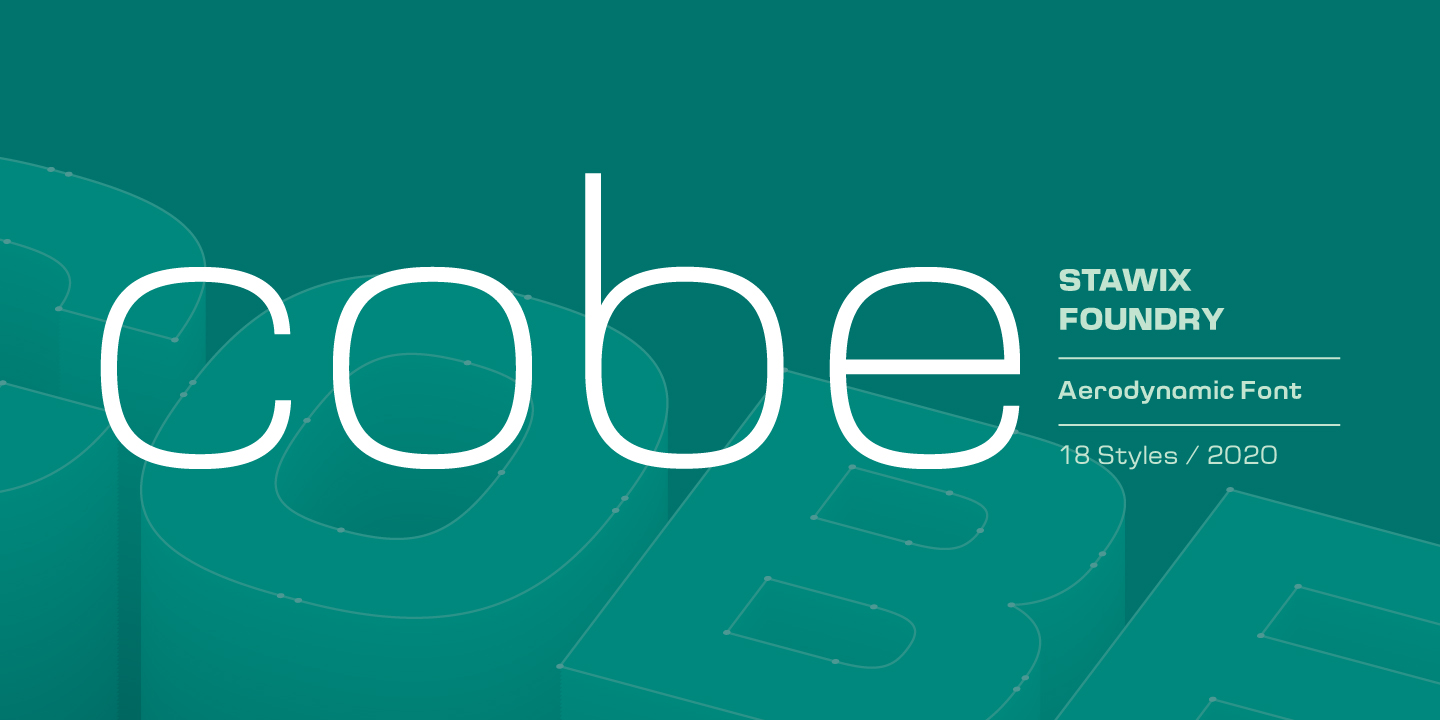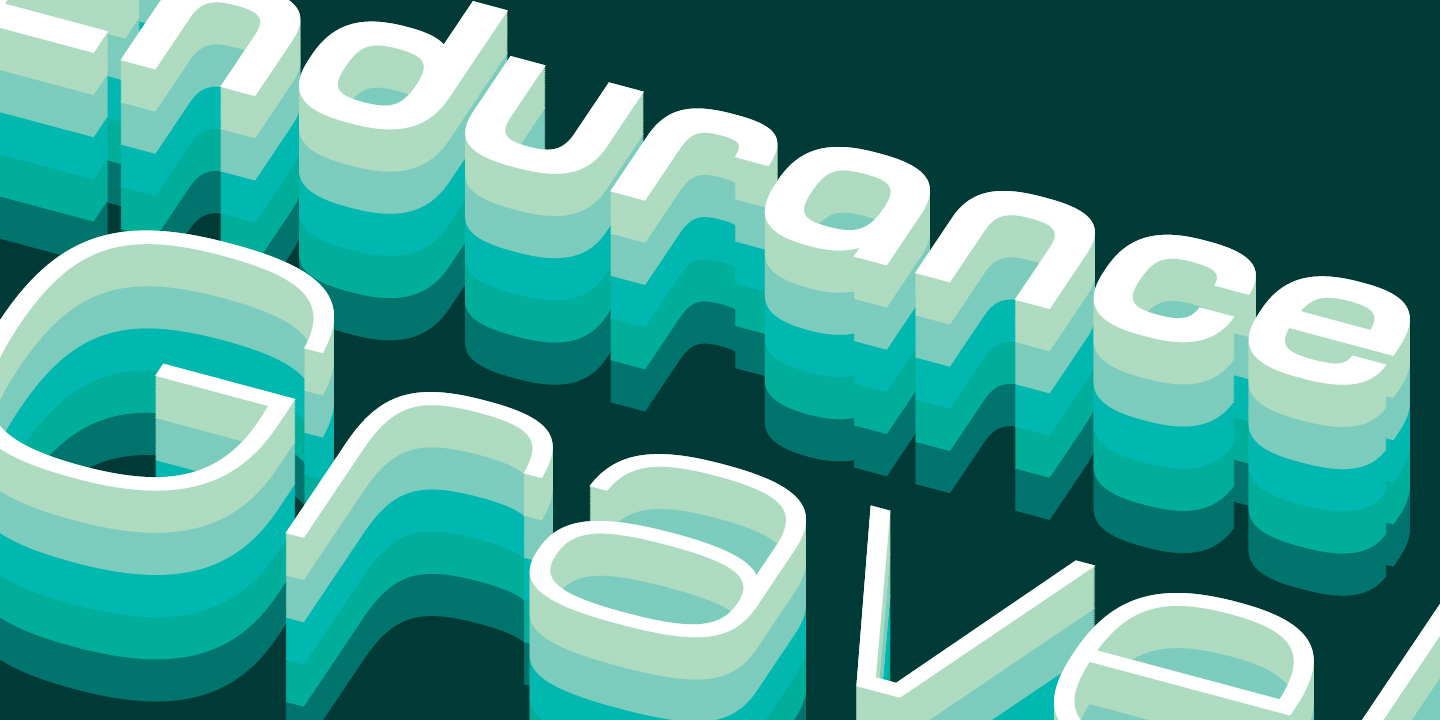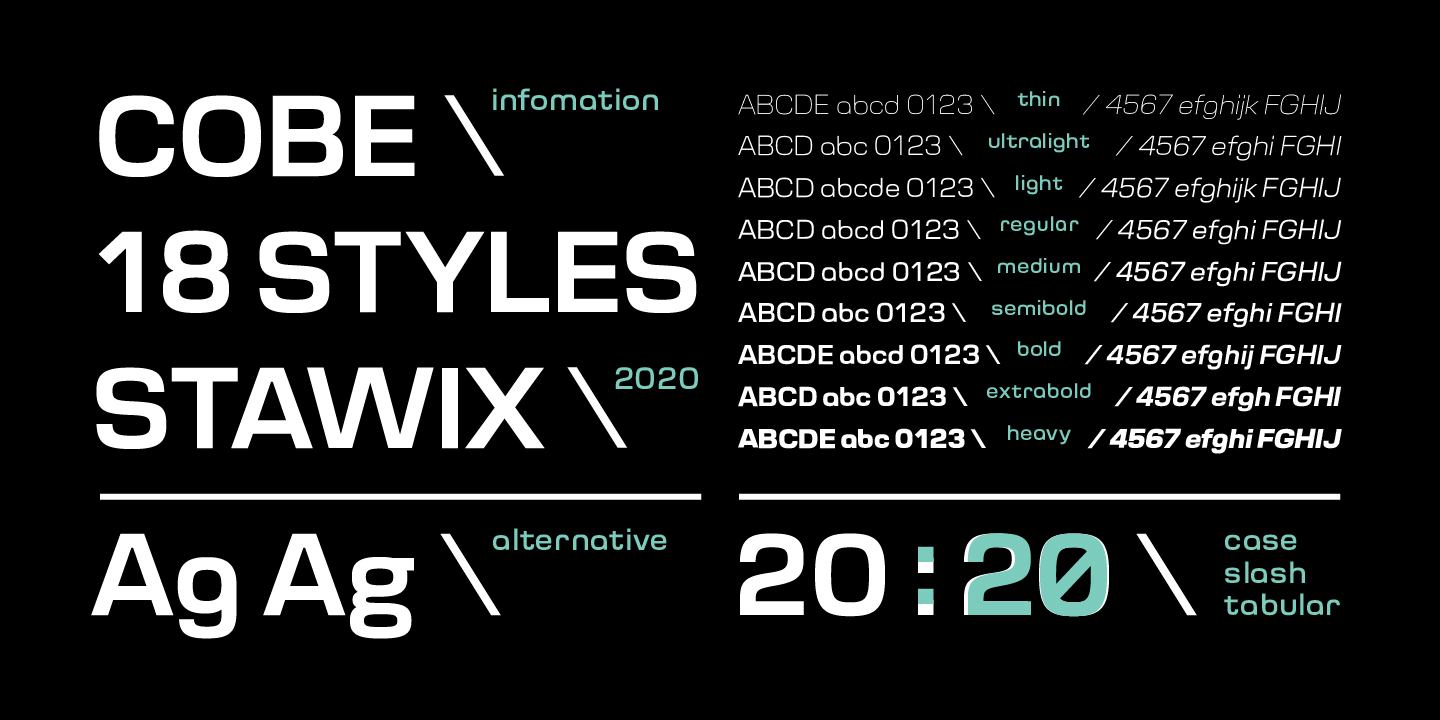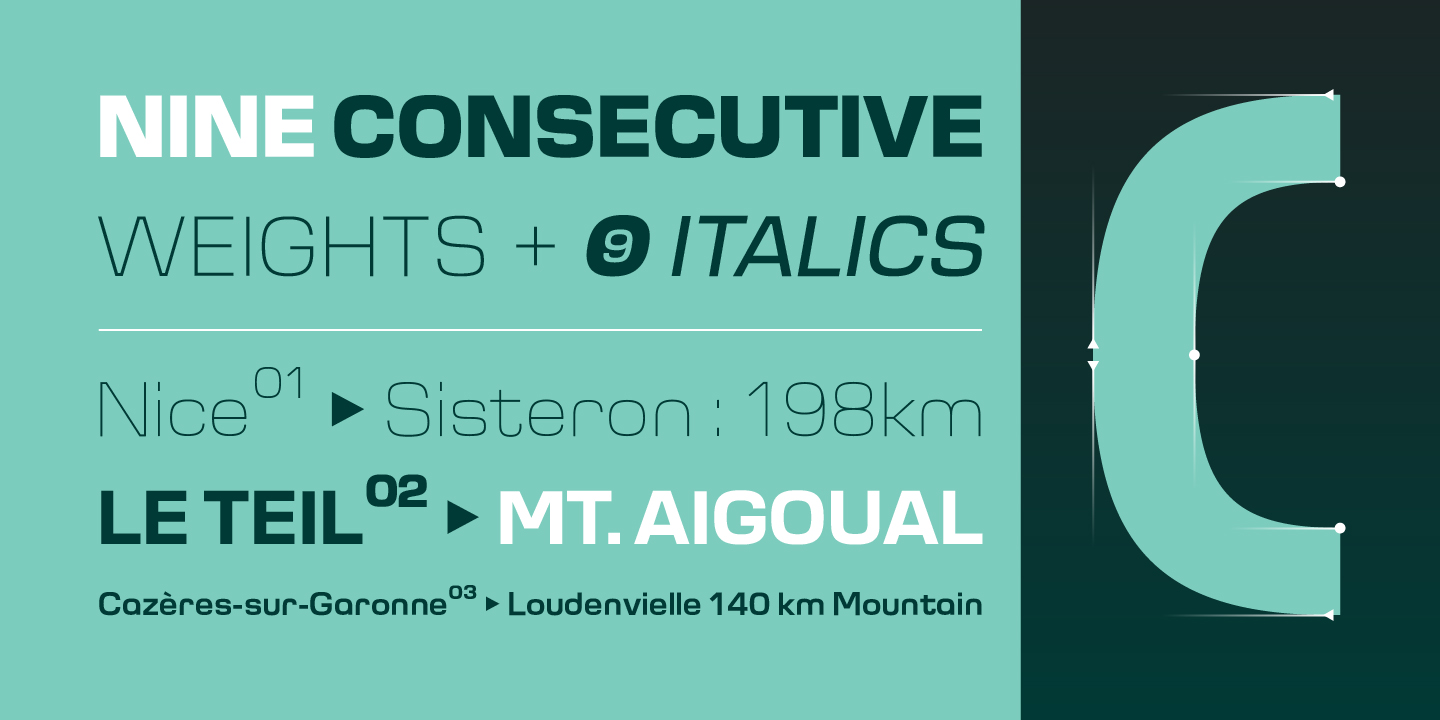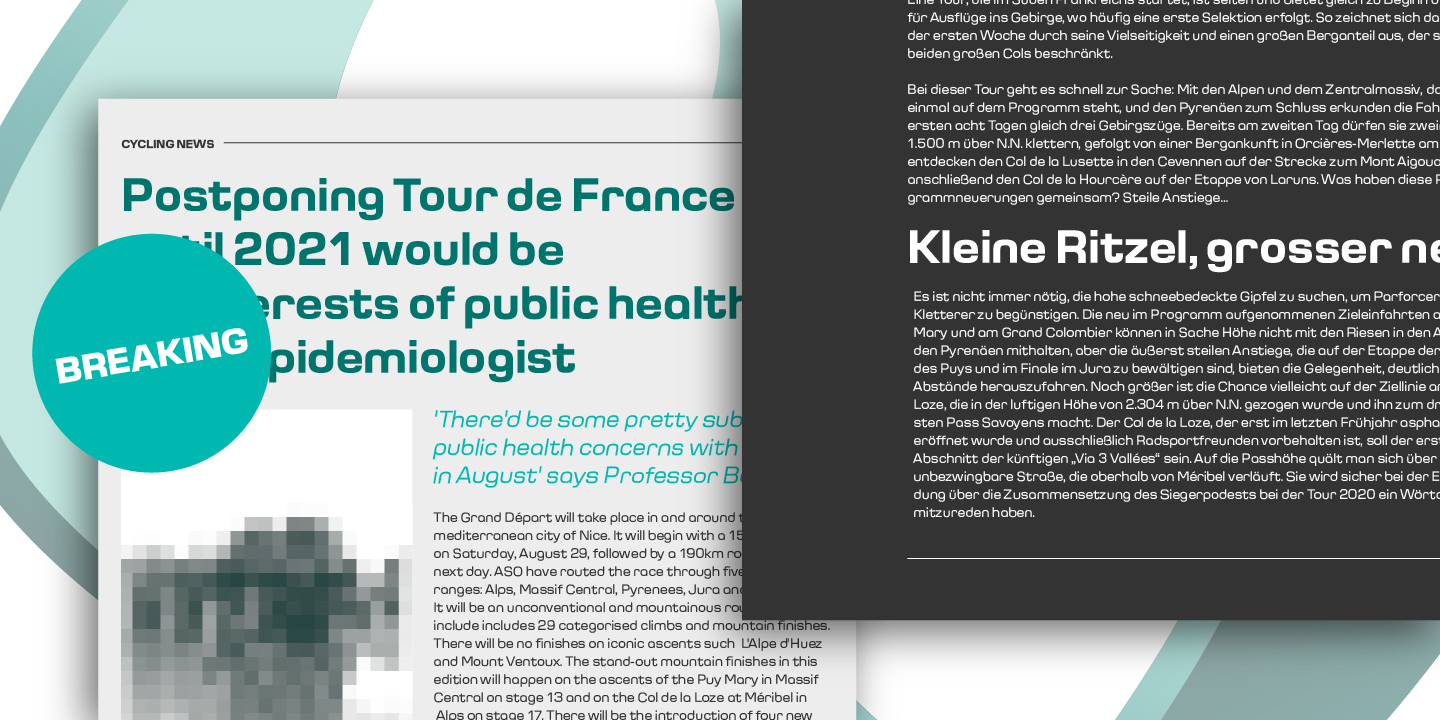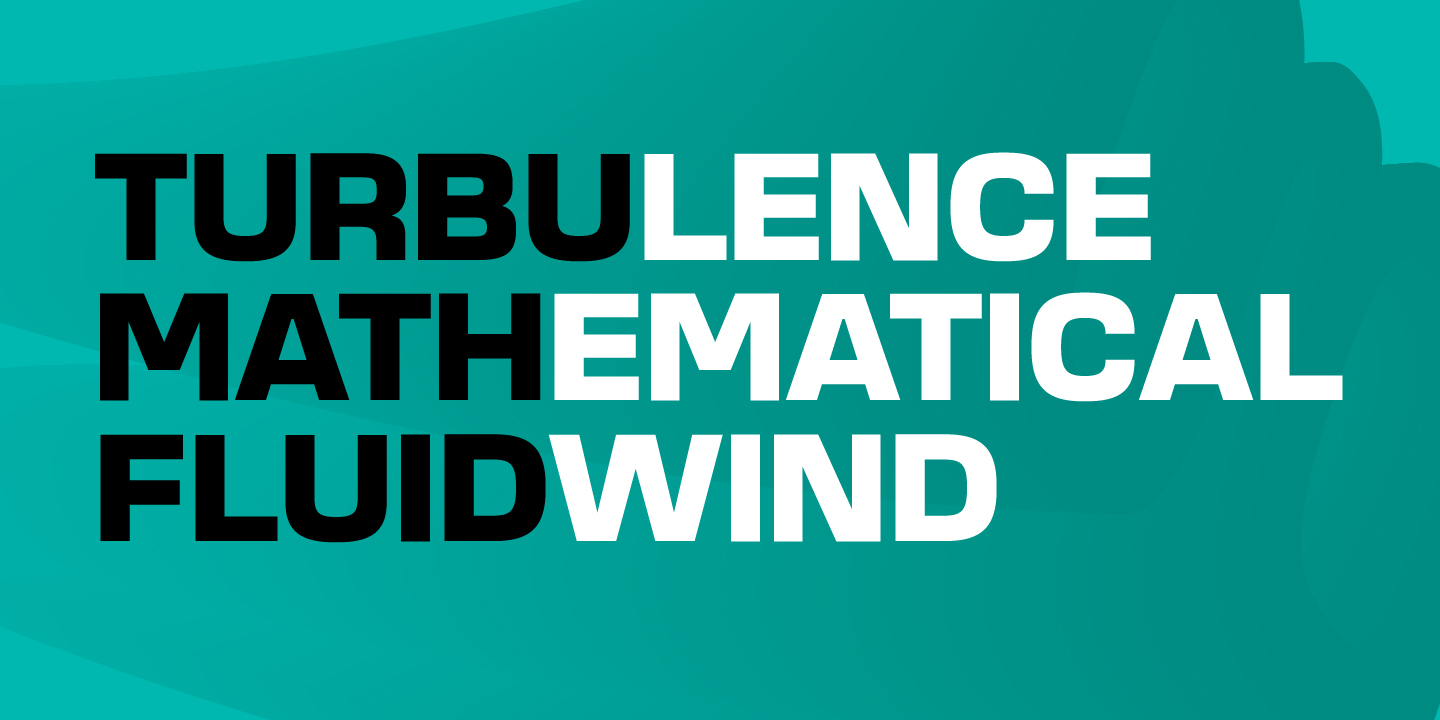
Cobe Font Family is designed with the concept of Aerodynamics. The real purpose behind Cobe’s design was to create a flexible typeface while maintaining a strong uppercase structure with distinct forms, shapes, and angles, resulting in a beautiful texture when created. into sentences.
The code is designed with soft rounded edges as well as strong, so the font is suitable for your many different projects, this is a basic font style to use for many different purposes such as text or text. large display.
Cobe Font Family includes 18 full fonts